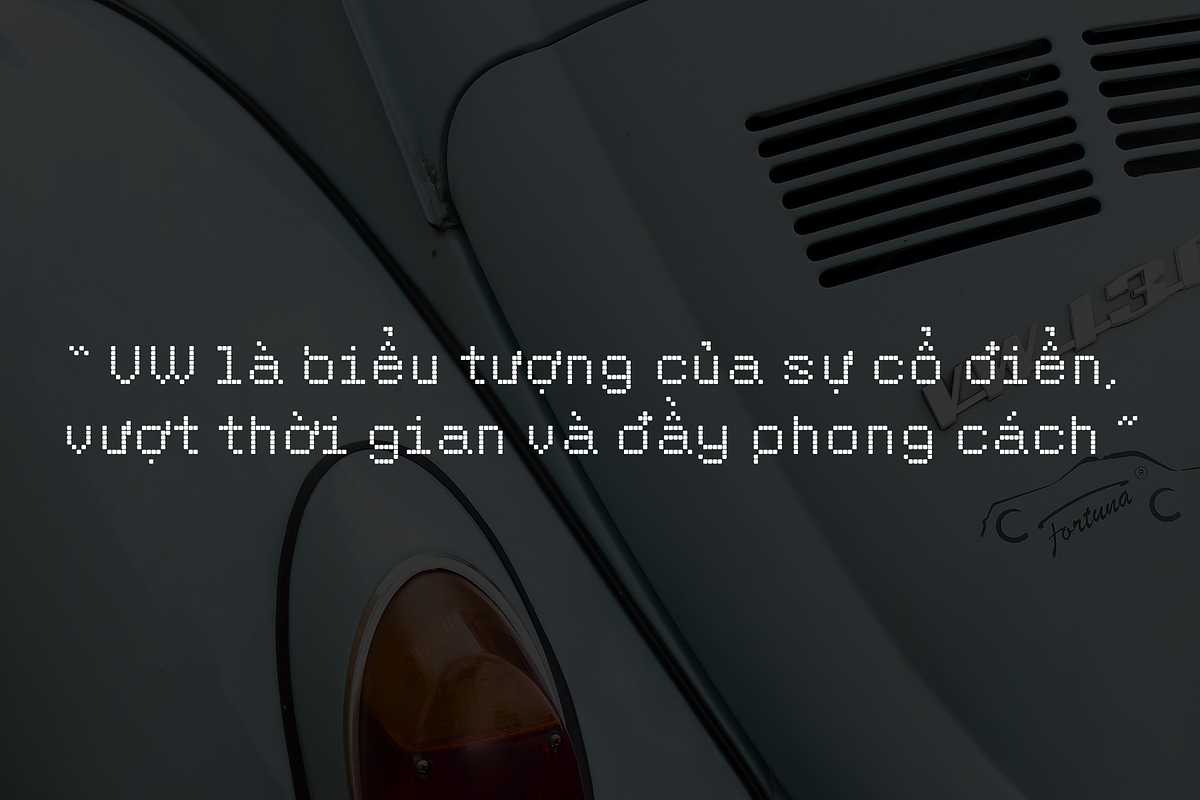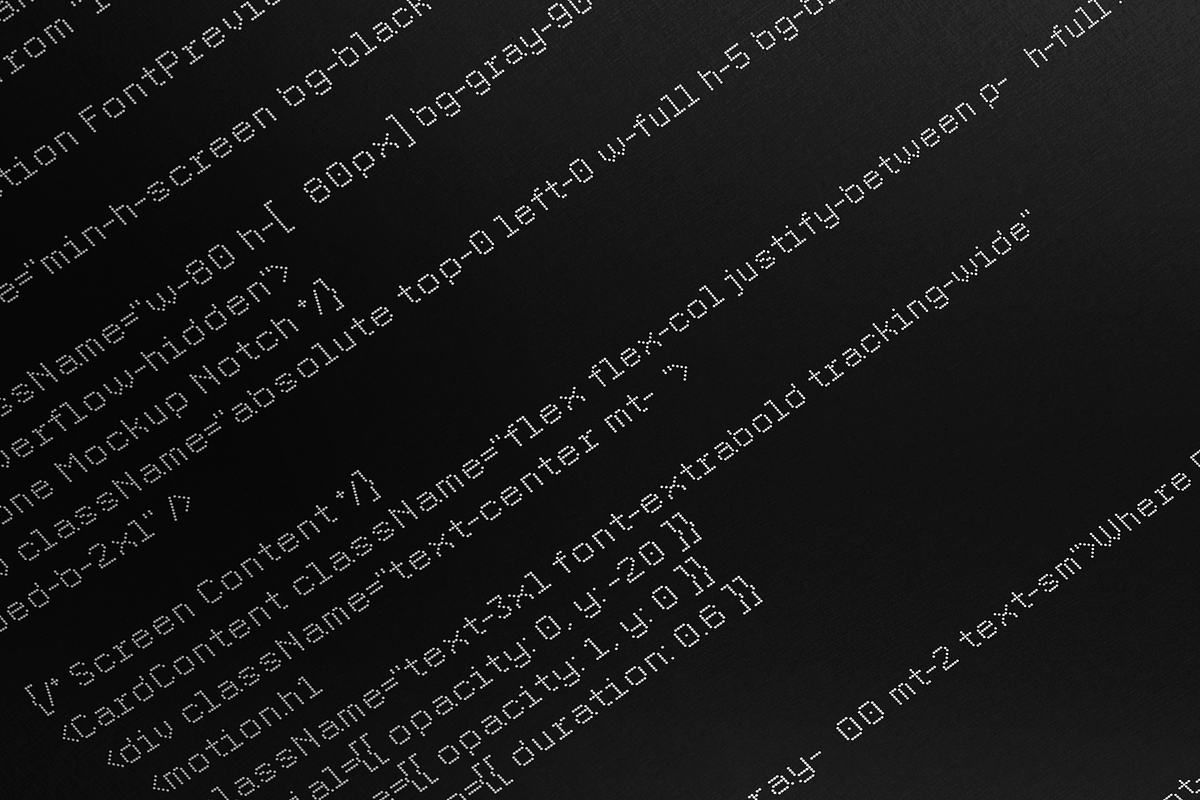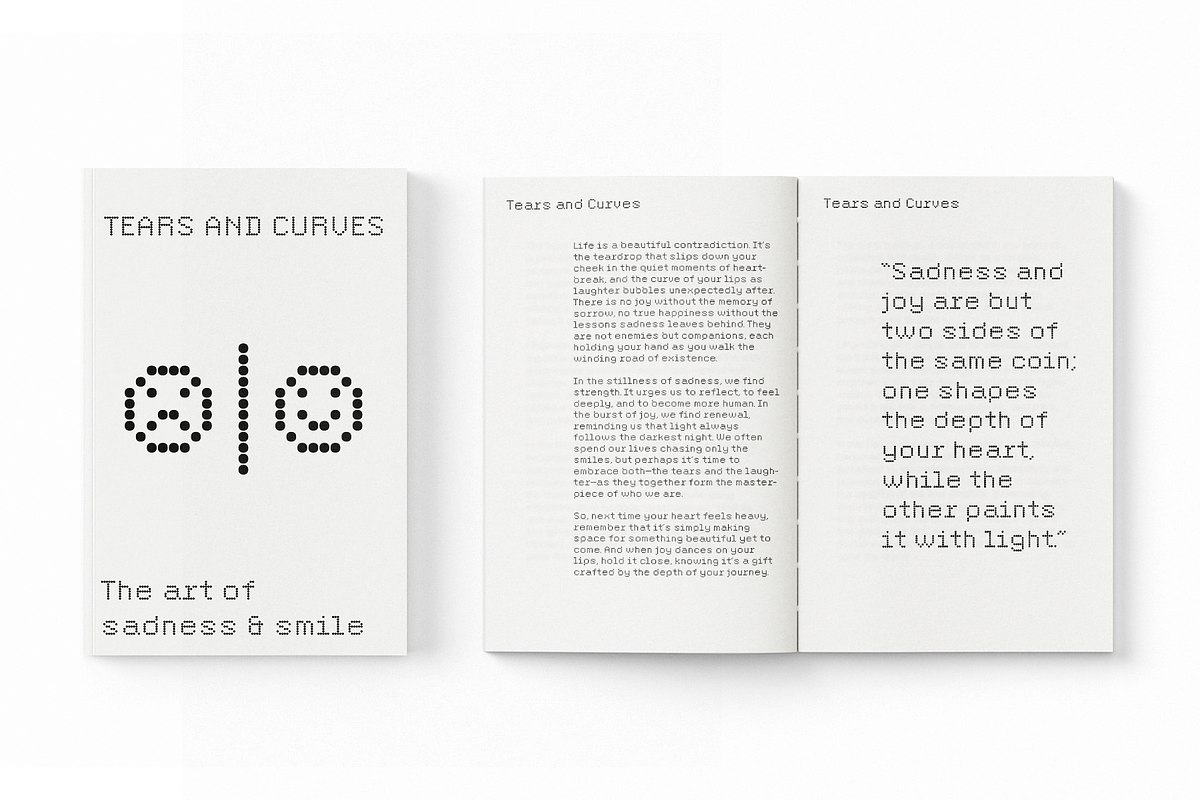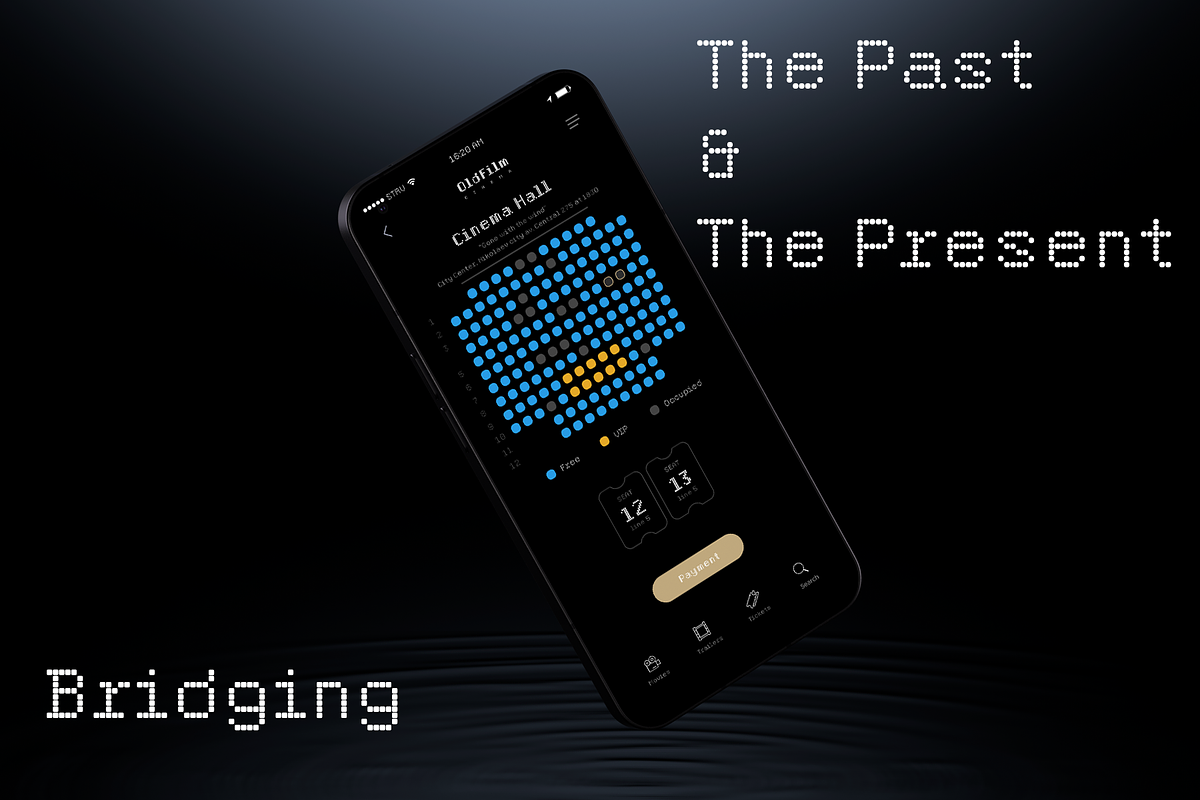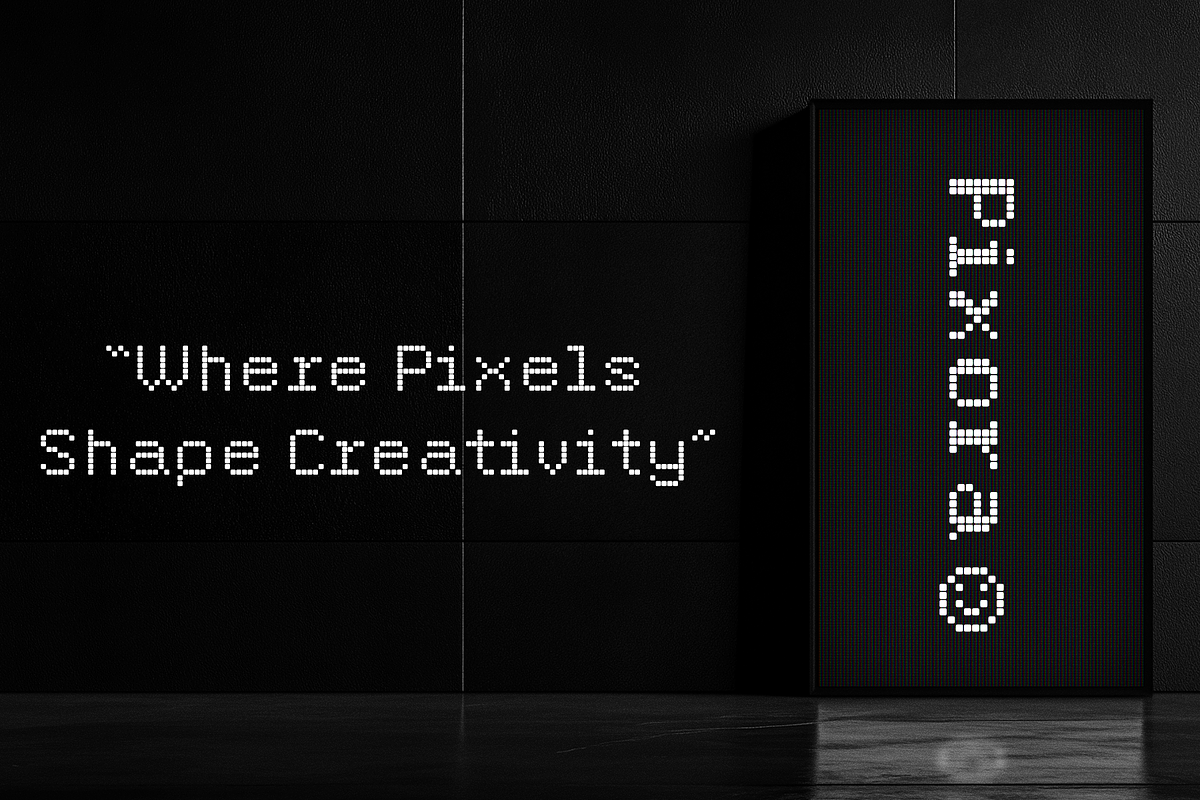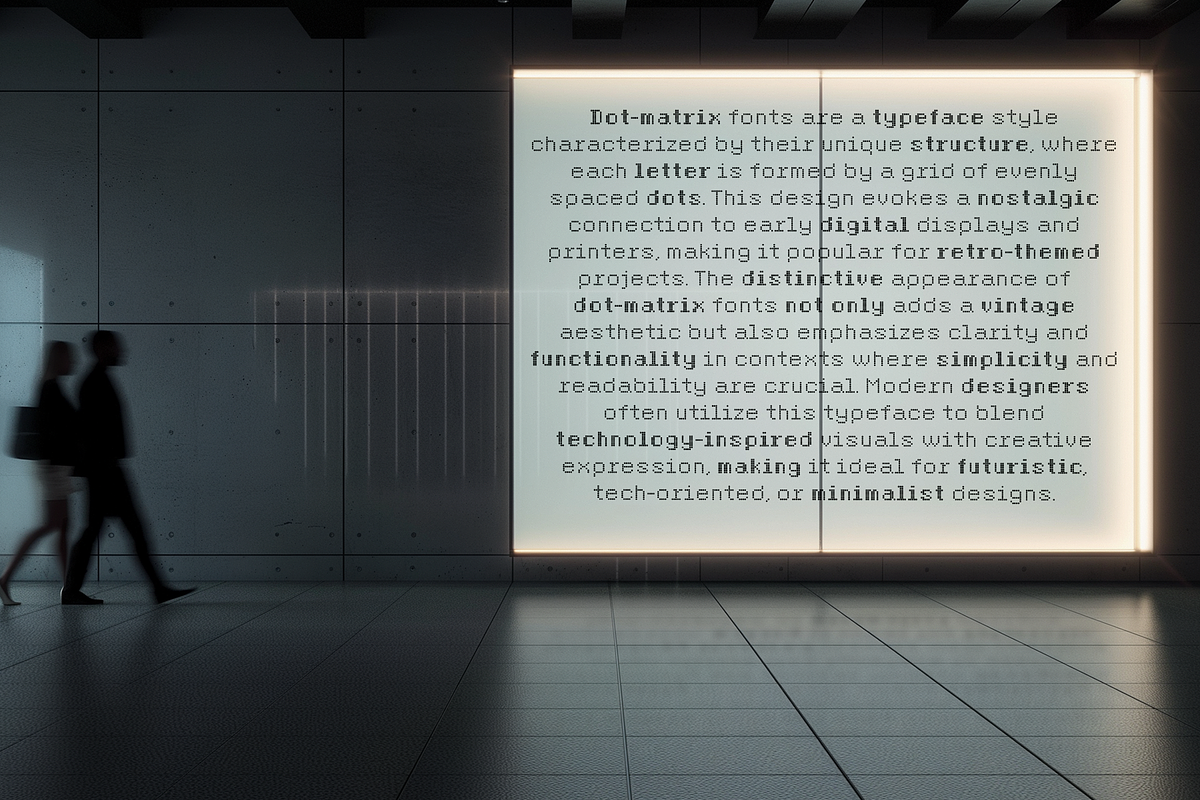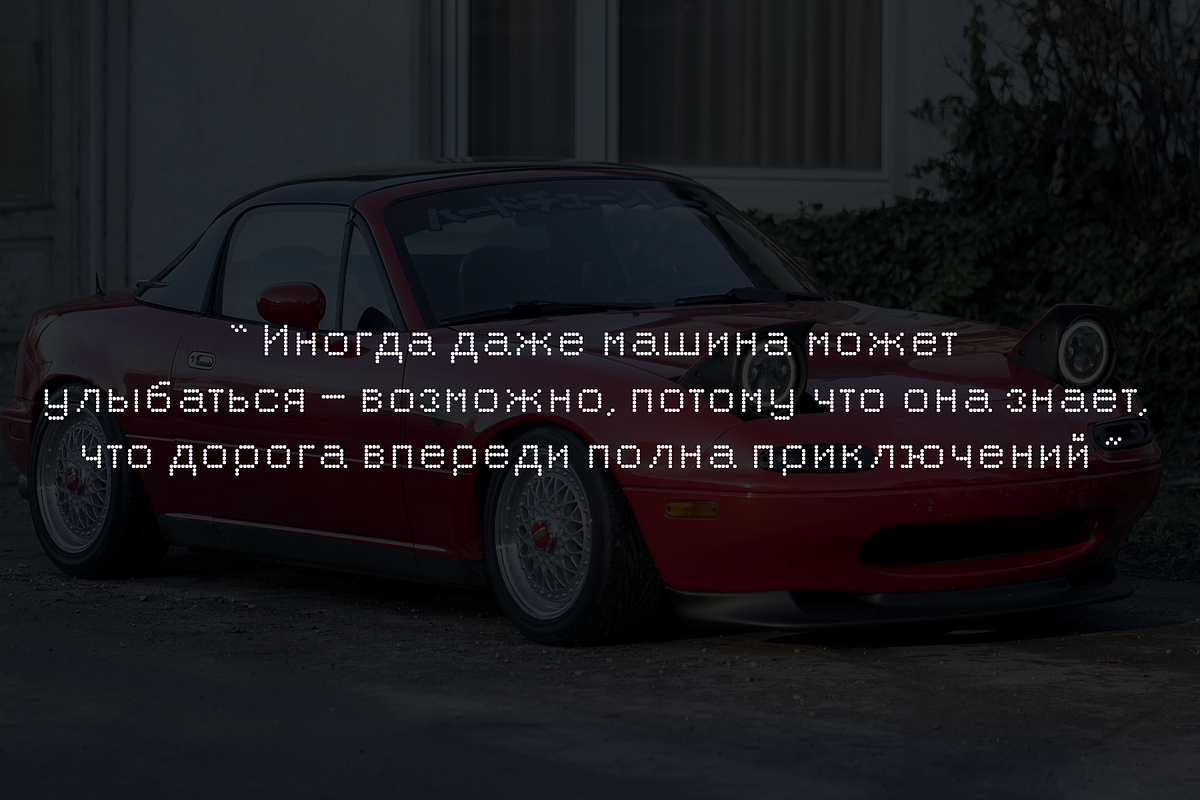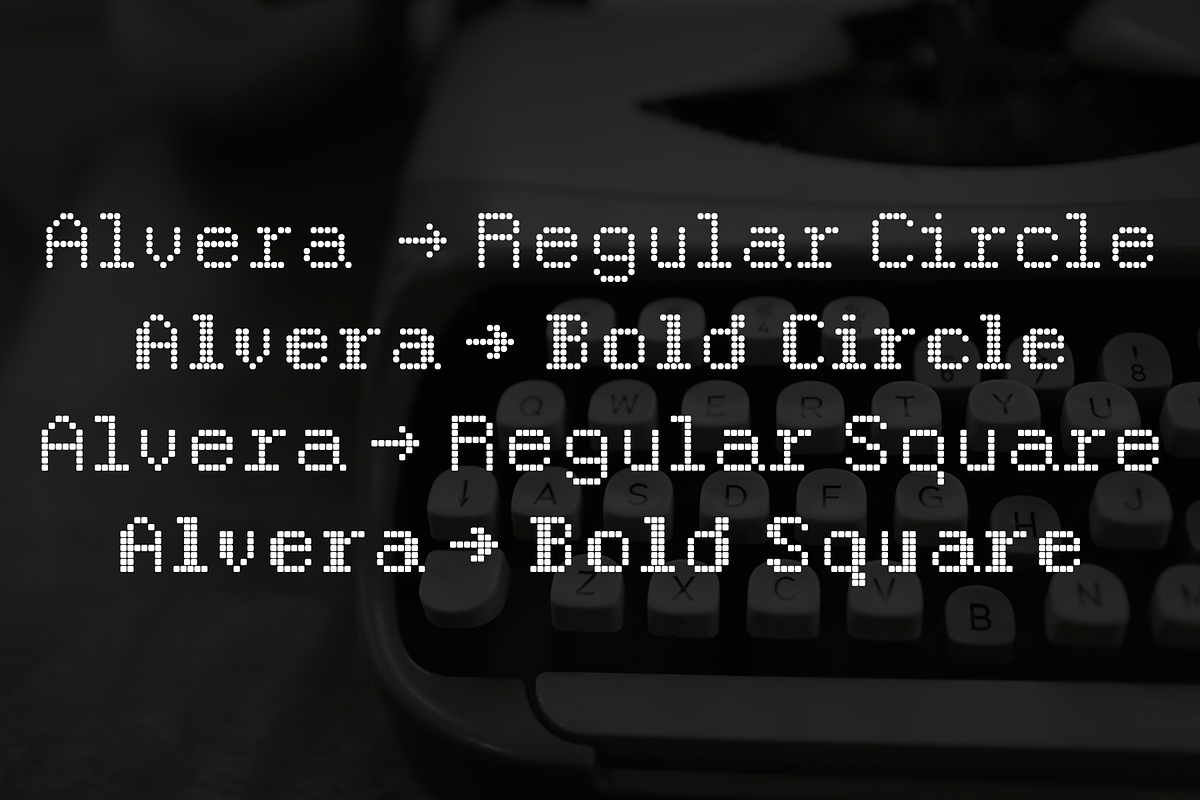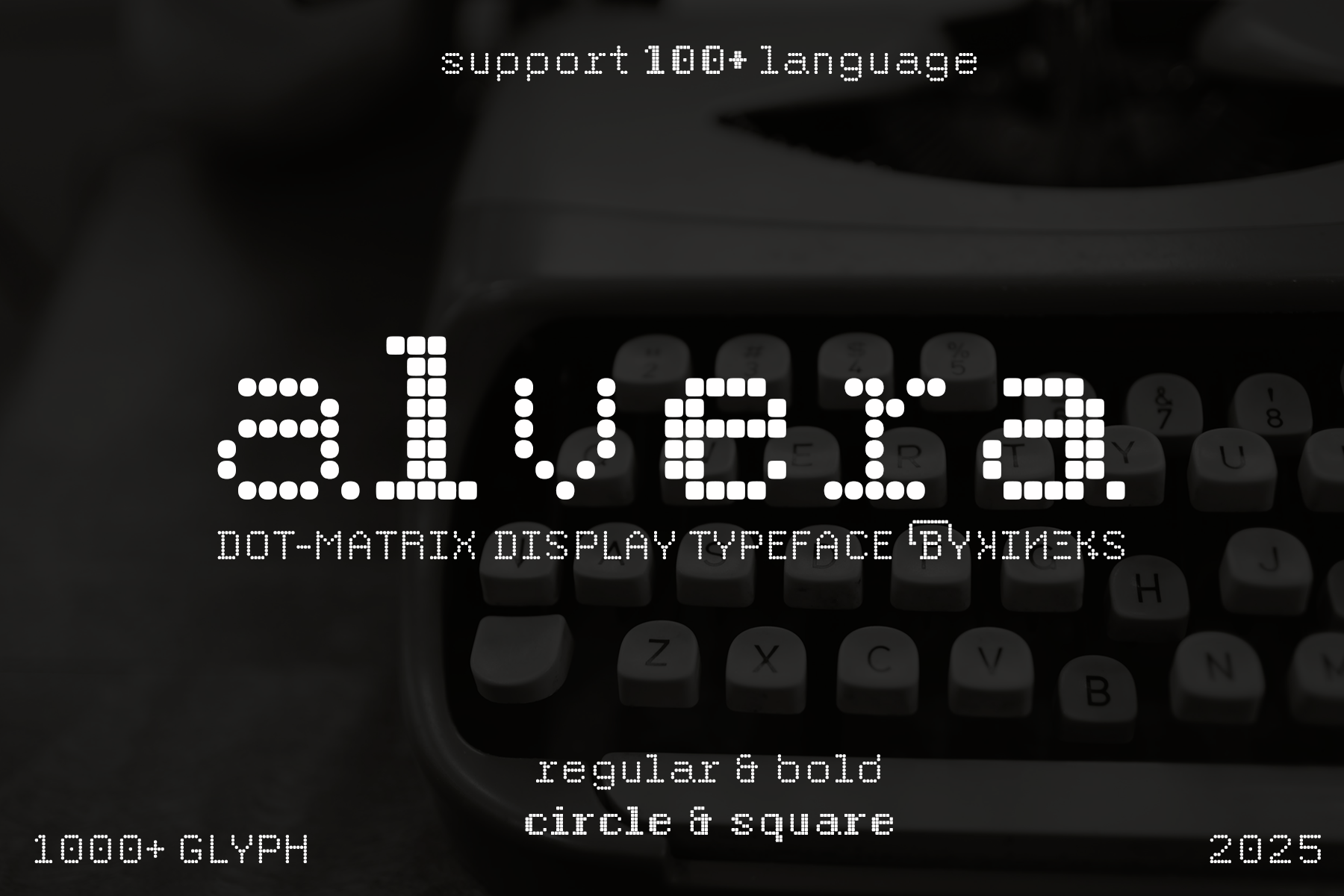
Alvera | Dot-Matrix Sans Typeface
Alvera – The Digital Pulse of Typography Step into the future while honoring the past with Alvera, a cutting-edge dot matrix-inspired typeface. Rooted in the raw, pixelated aesthetics of early computing and retro printers, Alvera takes inspiration from From ASCII Art to Comic Sans: The Multisensory Dot Matrix Printer. This font pays homage to classic digital typography, transforming mechanical imperfections into a striking typographic identity for modern creatives.
Designed with a precise modular structure and distinctive grid-based letterforms, Alvera captures the spirit of retro-futurism, where nostalgia meets innovation. Every glyph echoes an era when typography was shaped by constraints, yet remains bold, industrial, and highly functional for today’s design landscape.
Why Choose Alvera? ✅ Authentic Retro Digital Feel – Inspired by dot matrix printers, ASCII art, and early digital screens, Alvera embodies a unique tech aesthetic. ✅ Flexible & Dynamic – Available in Regular & Bold, perfect for headlines, UI/UX, esports branding, and editorial layouts. ✅ Two Distinct Styles – Select between Circle & Square dot designs to match your creative vision. ✅ Multilingual Support – Covers 100+ languages, ensuring seamless global usability. ✅ Massive Glyph Set – Over 1000 glyphs, offering diverse design possibilities.
Where Alvera Shines 🔹 Esports Branding & Gaming Interfaces – Give your projects a bold, high-tech identity. 🔹 Tech Startups & Digital Products – Enhance UI/UX with a sleek, futuristic typeface. 🔹 Sci-Fi Posters & Motion Graphics – Craft immersive, cyberpunk-inspired visuals. 🔹 Retro Tech & Terminal Displays – A perfect fit for vaporwave, glitch art, and nostalgic digital aesthetics.
Experience Alvera—the fusion of nostalgia and modernity, precision and personality. Whether you're designing for the future of tech or celebrating the golden era of computing, this typeface ensures your work stands out.